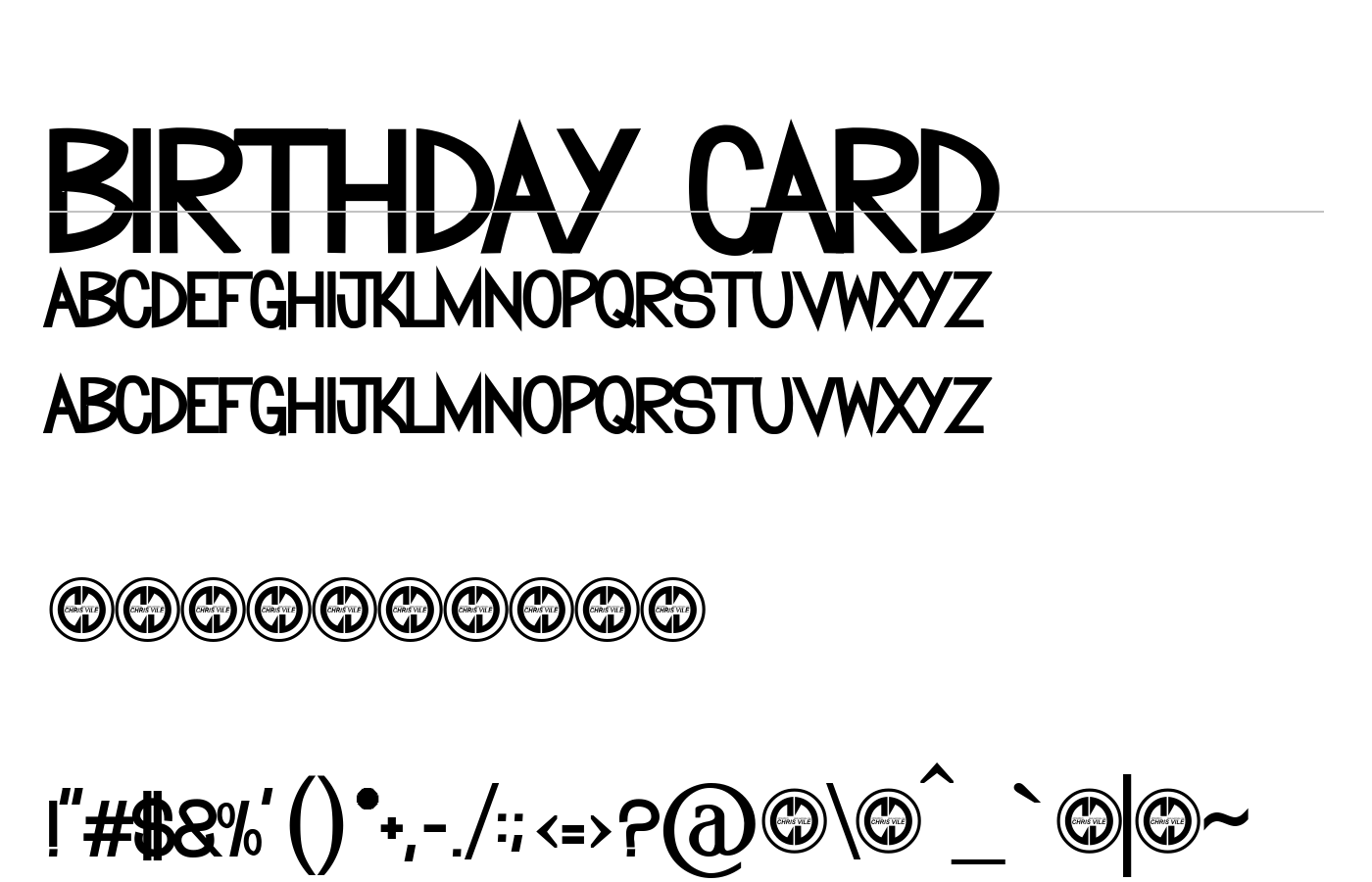
Birthday Card Font is a playful and bold sans serif typeface with a quirky, hand-drawn feel. Its tall, narrow letterforms with sharp angles and uneven strokes give it a whimsical style perfect for fun, casual designs such as party invitations, greeting cards, and children’s projects. This font brings a lively, cheerful personality that works best in headlines and display use where a unique and friendly vibe is desired.
birthday card Font
About birthday card Font